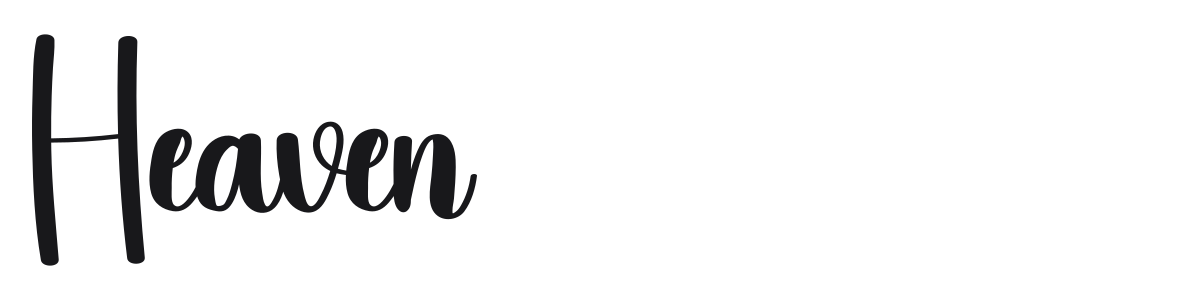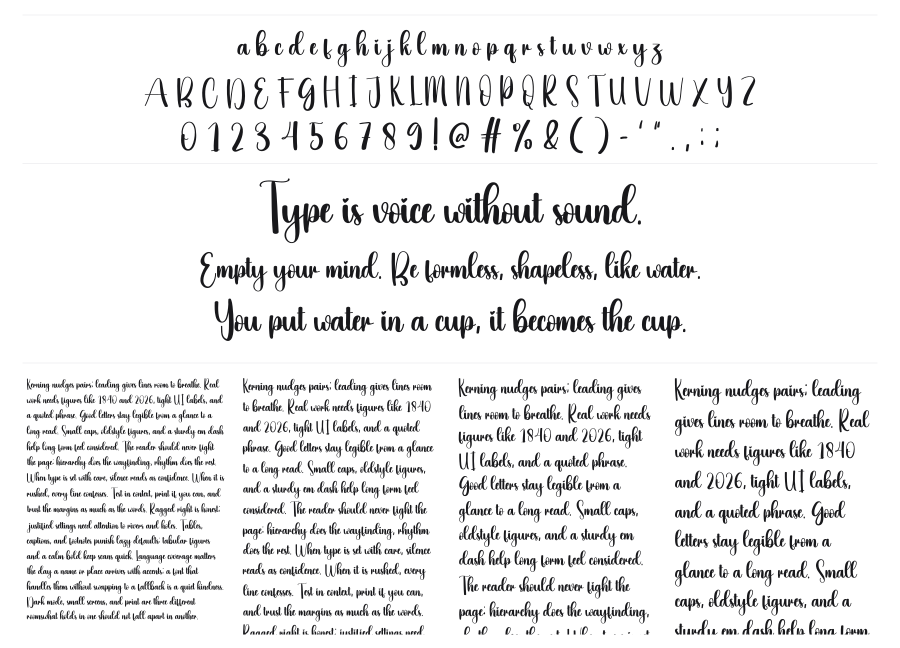
Heaven
Heaven is a bold casual script with looping ascenders, flowing connections, and a lively bouncing baseline. The thick-to-thin stroke contrast gives it a calligraphic energy that feels handwritten but polished. It suits wedding stationery, product packaging, and social media graphics where personality and warmth are the priority.